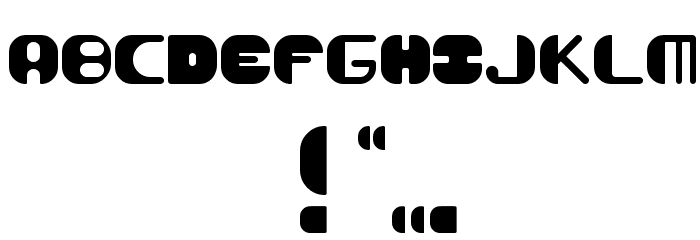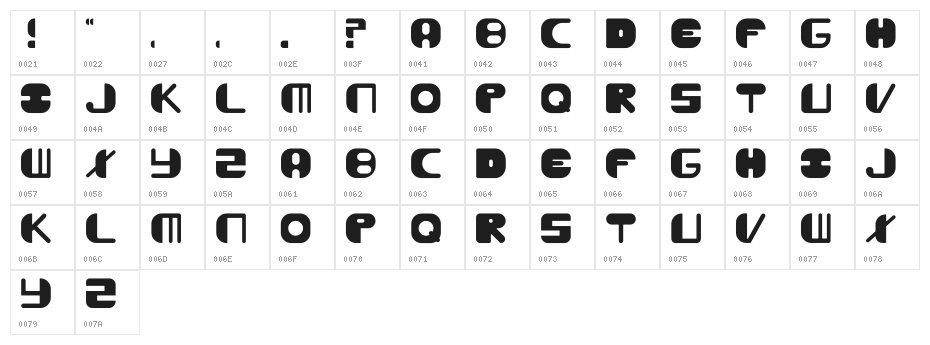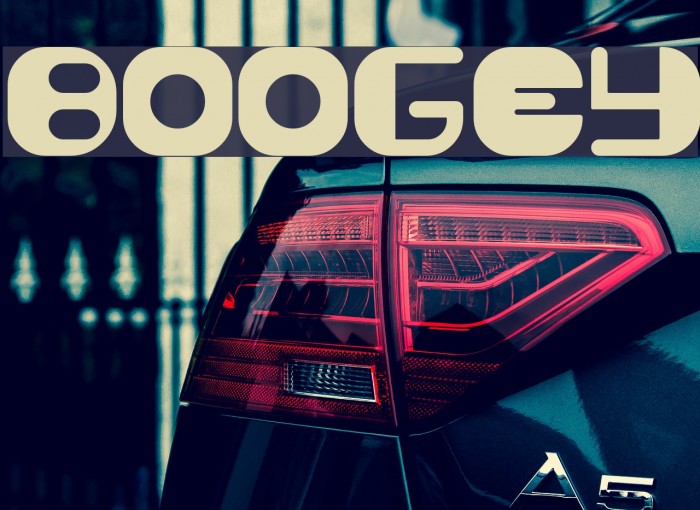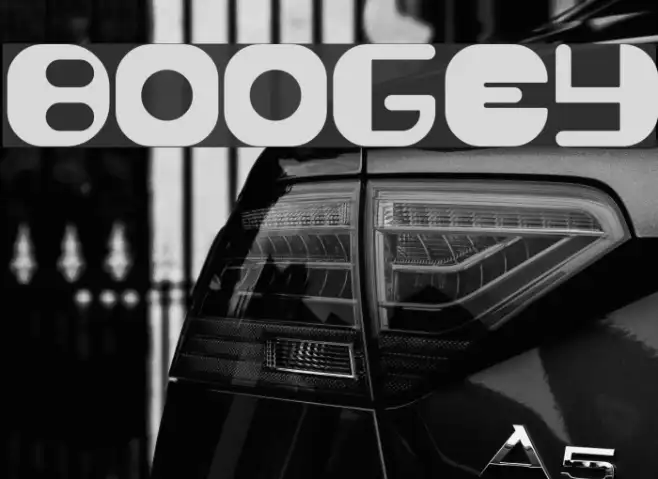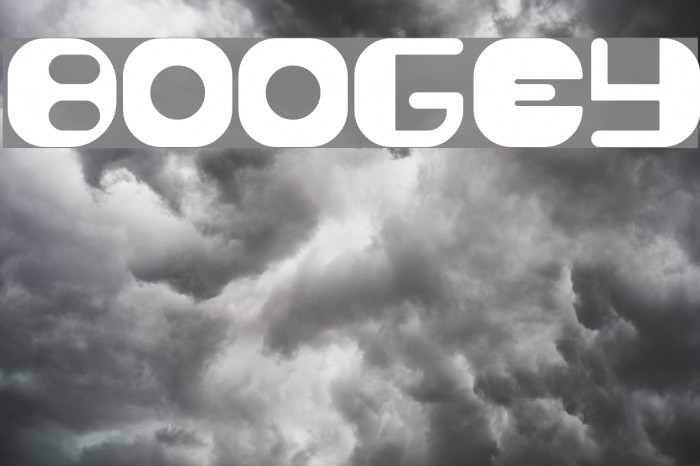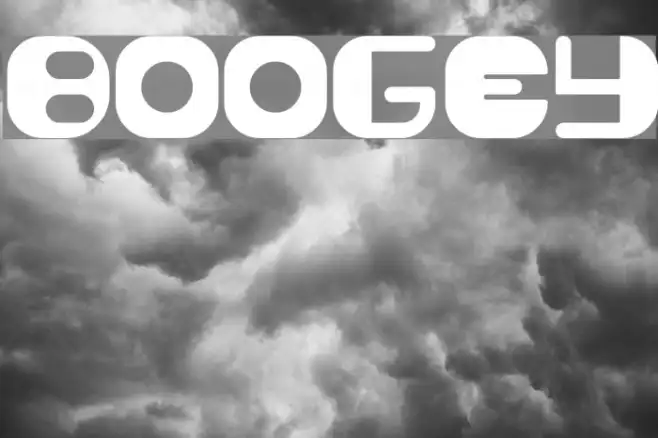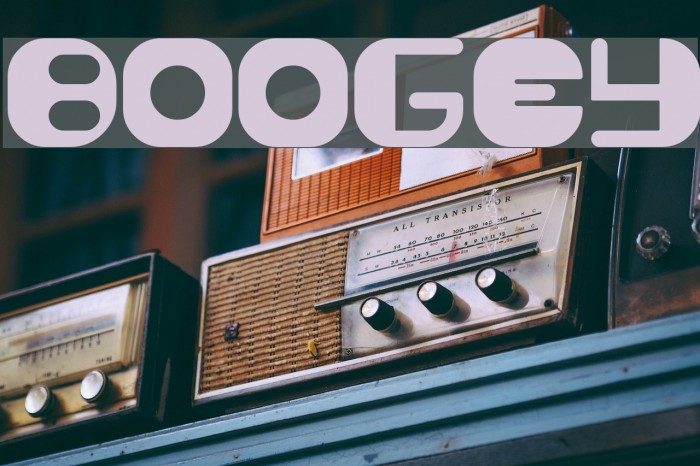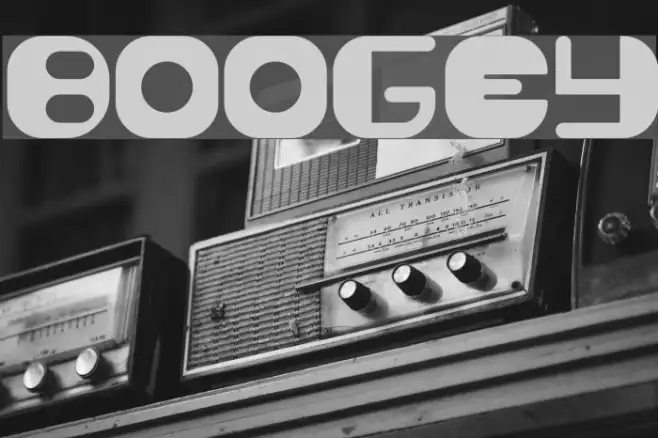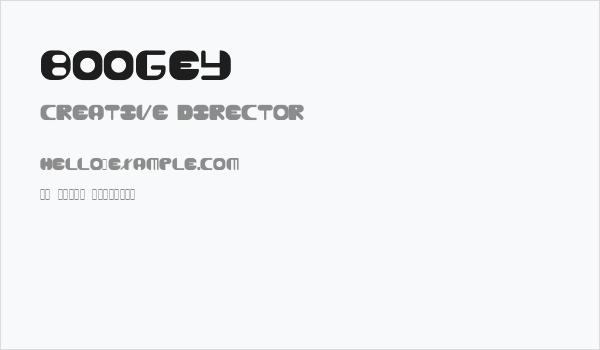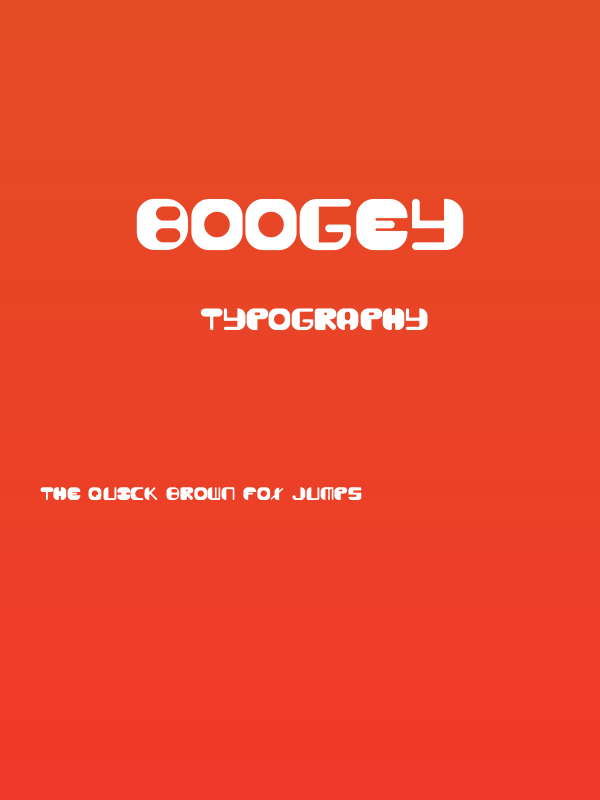
Boogey Font
Boogey Description
This font features a bold, geometric style with rounded edges and a futuristic aesthetic. The characters are wide and have a strong presence, making them ideal for attention-grabbing designs. The uppercase letters are uniform in height, while the lowercase letters maintain a consistent style, enhancing readability. The numbers and special characters are designed to match the overall theme, with a playful yet modern look. This font is perfect for projects that require a bold statement, such as posters, logos, and headlines.
Proposed ProjectsIdeal for posters, logos, headlines, and any design that requires a bold, modern look.